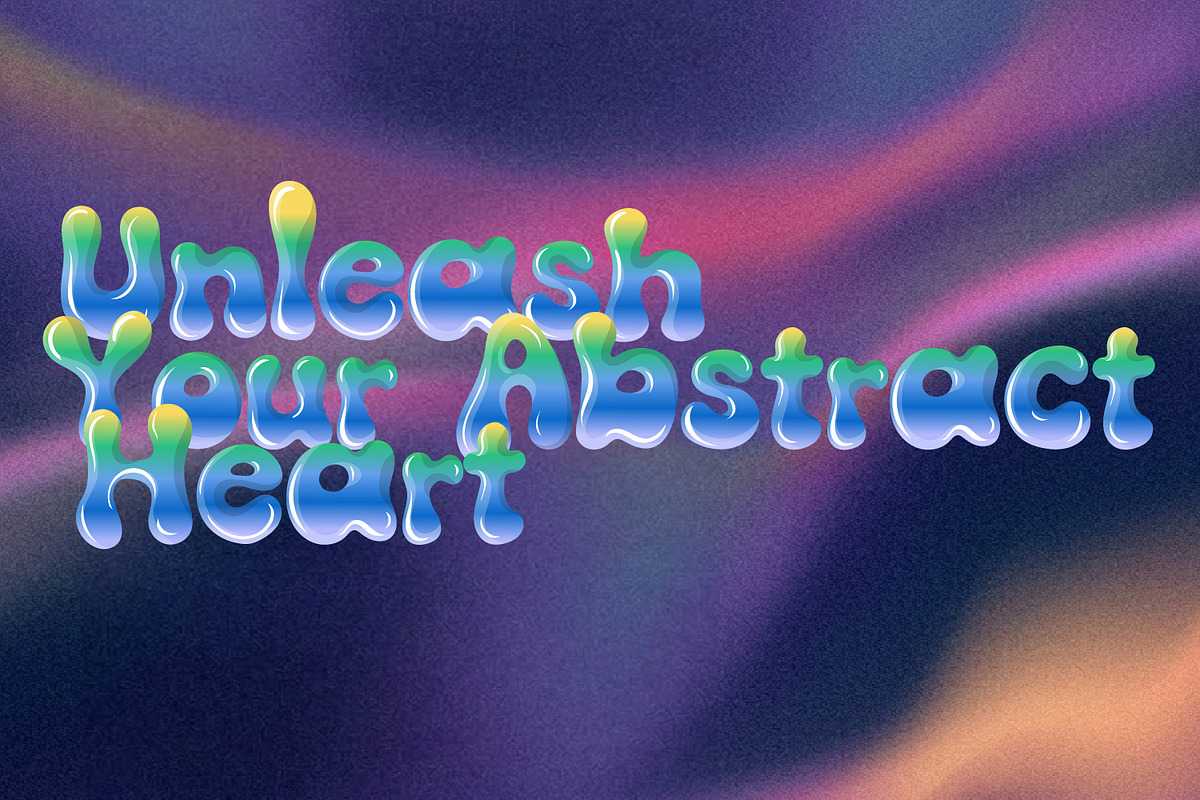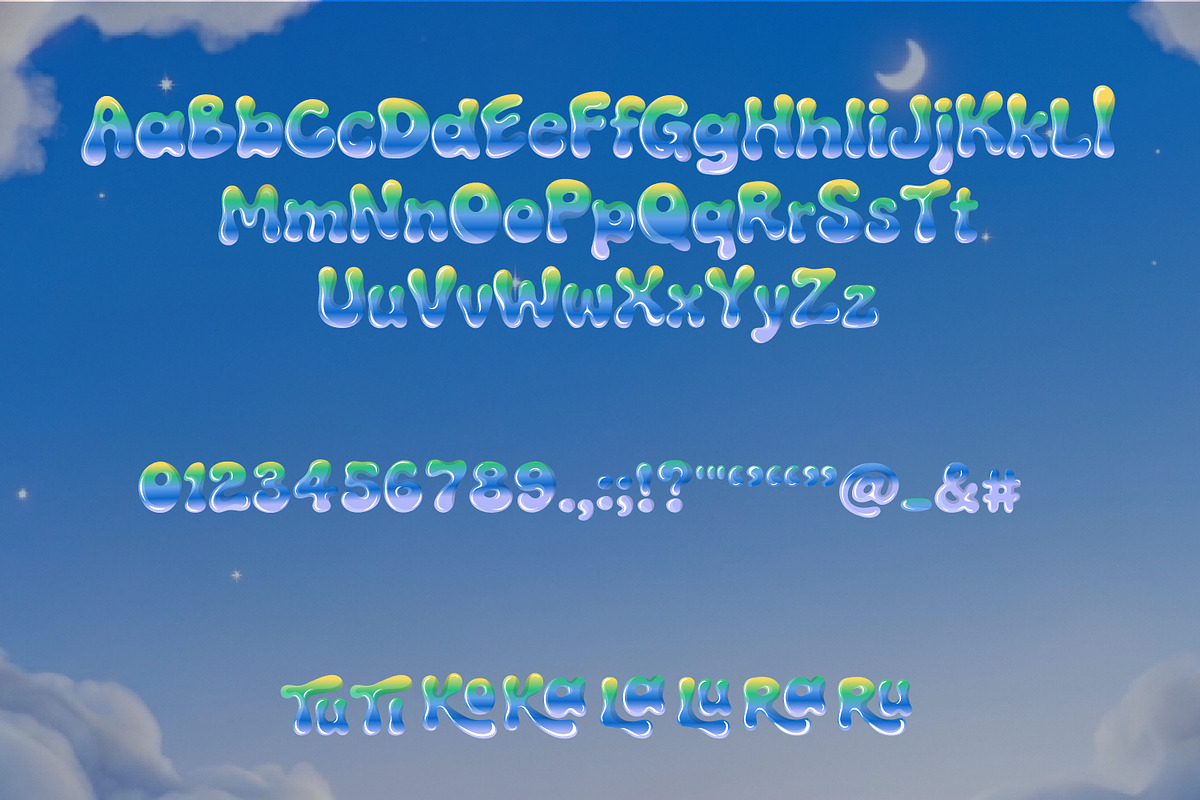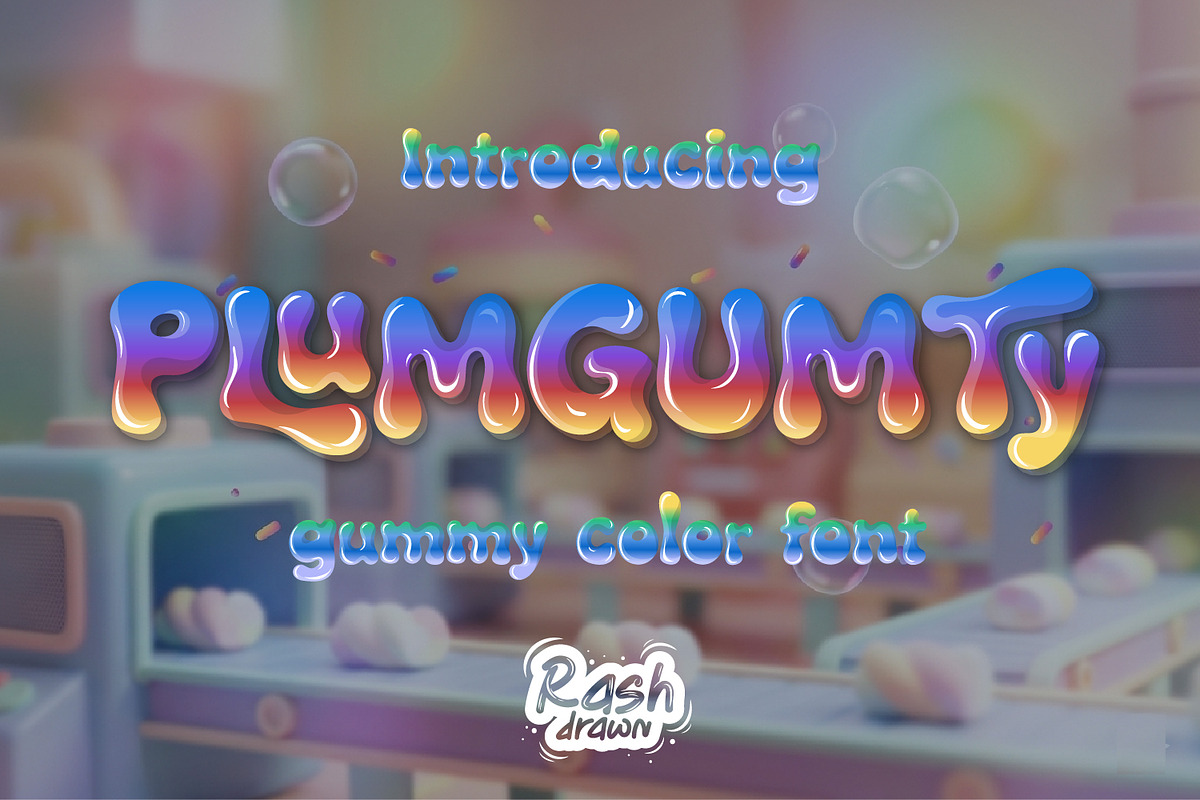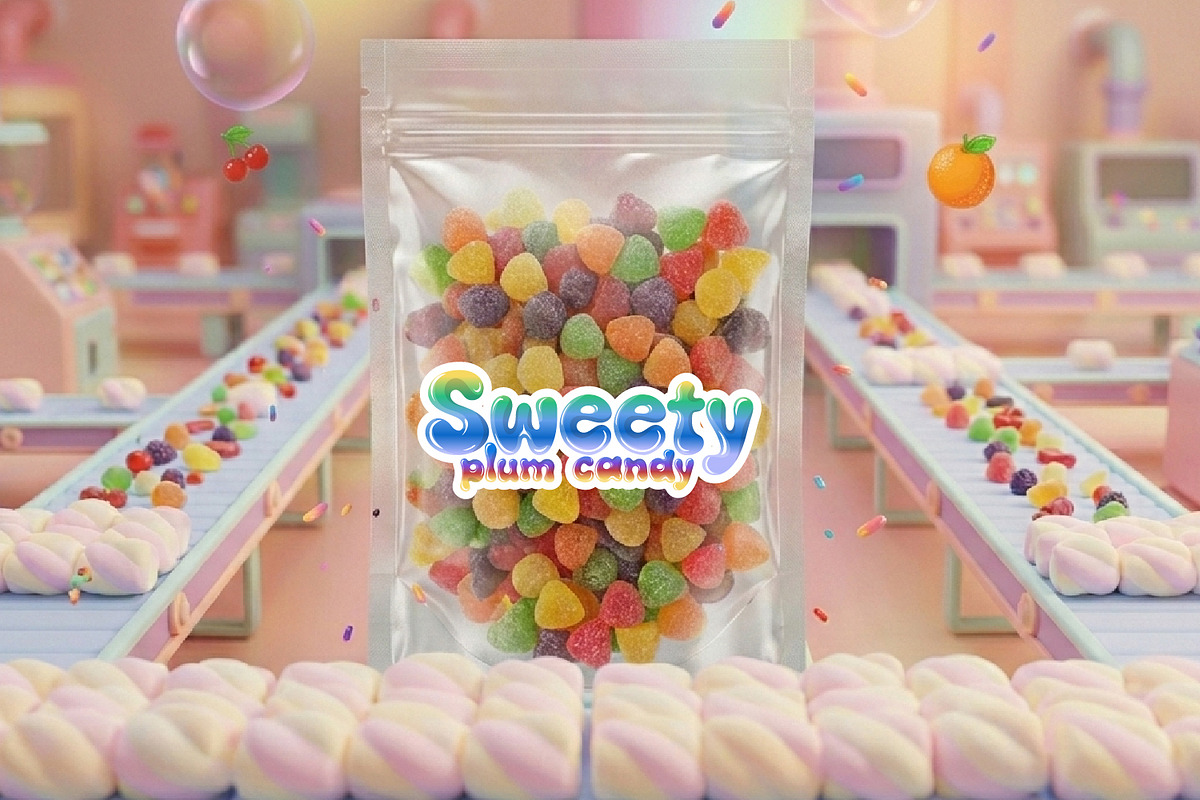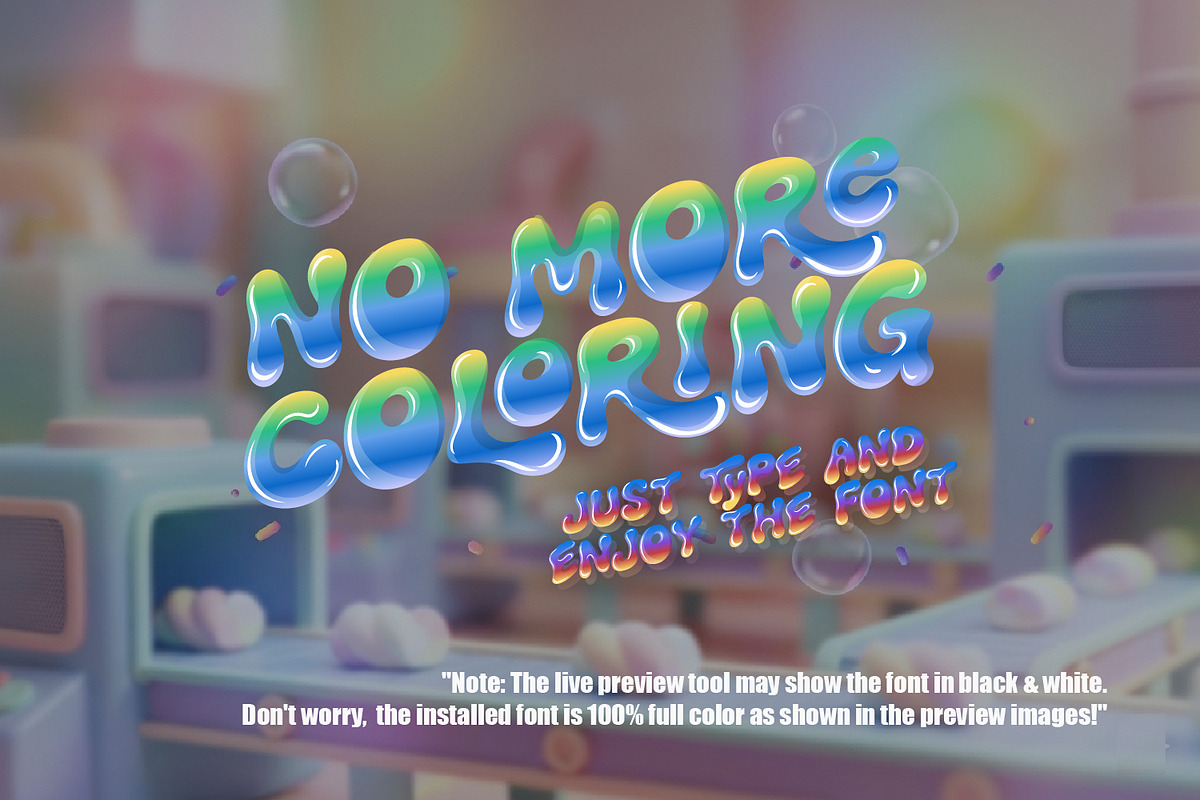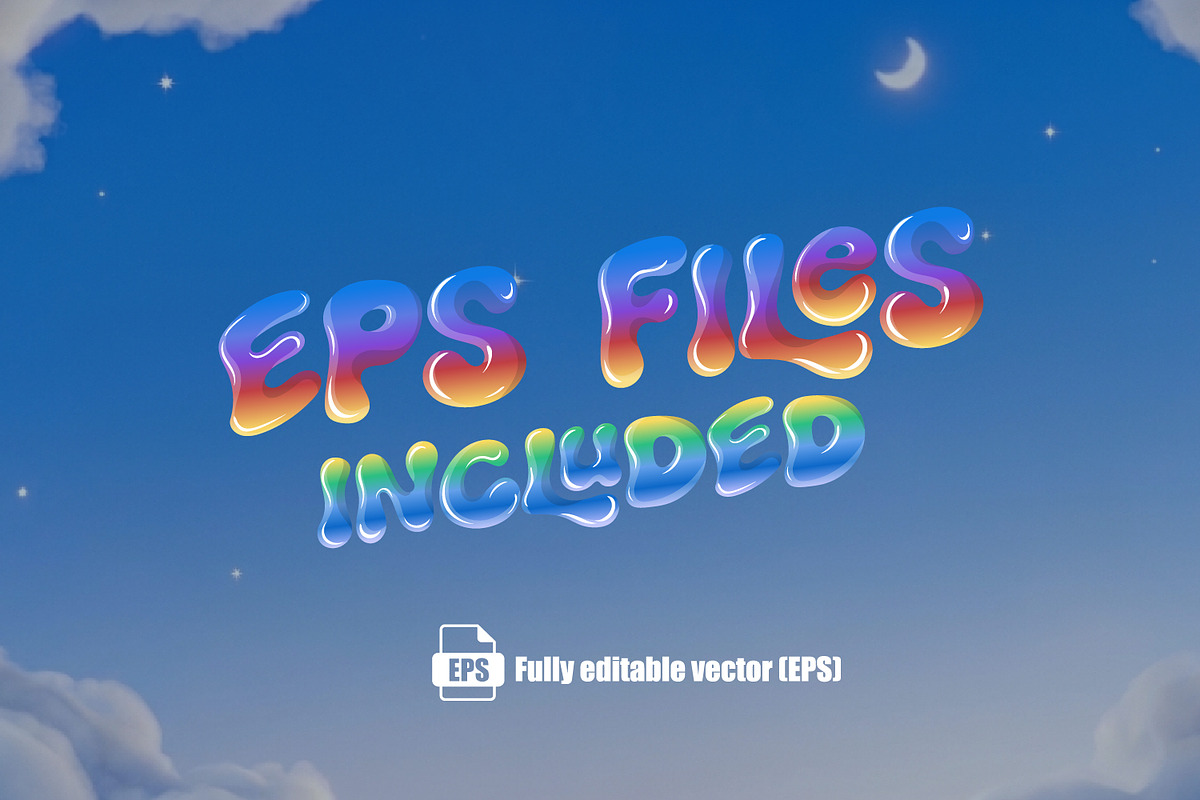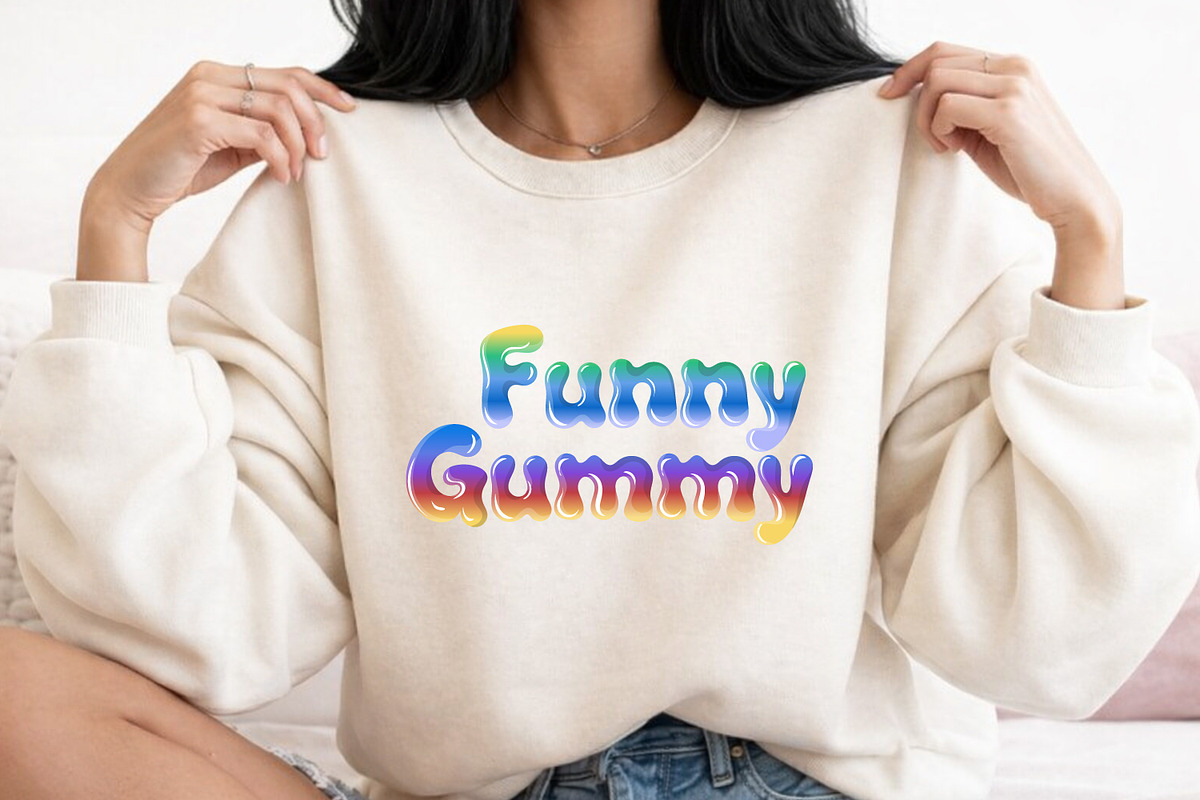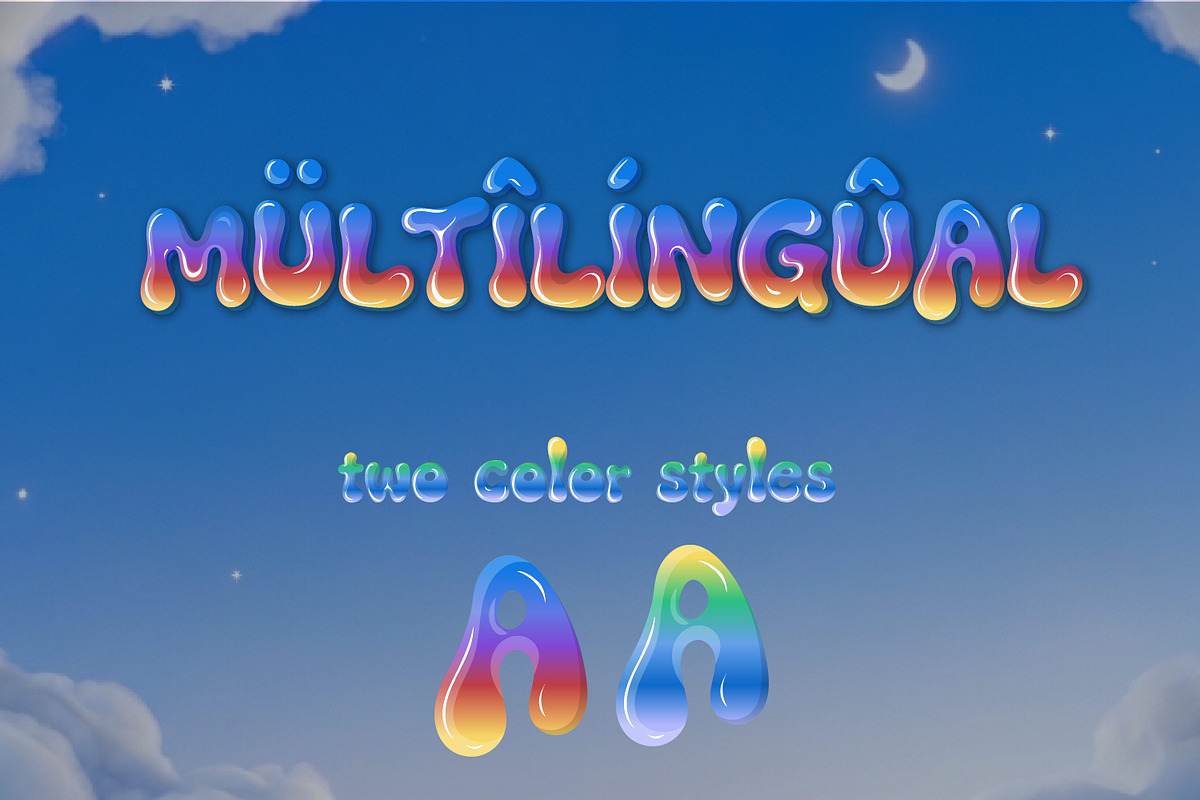
plumgumty
PLUMGUMTY – Glossy Gummy Color Font Bring a burst of sweetness and vibrant energy to your designs with PLUMGUMTY! This high-quality color font features a delicious, candy-inspired aesthetic with realistic glossy textures, bubbly liquid effects, and dynamic gradients.
Whether you're designing for kids' products, social media thumbnails, or modern Y2K-inspired branding, PLUMGUMTY is crafted to be an instant eye-catcher. No more manual coloring—just type and enjoy the full-color gummy goodness!
Multilingual Support: Includes accented characters for a wide range of languages.
Two Color Styles: Choose between a warm vibrant mix and a cool, refreshing gradient style.
Perfect For: 🍬 Packaging Design: Candy, snacks, toys, and kids' cosmetics.
🎬 Digital Content: Eye-catching YouTube thumbnails, TikTok covers, and Reels titles.
👕 Apparel: Fun t-shirt designs, hoodies, and streetwear.
🎨 Creative Projects: Posters, birthday invitations, stickers, and brand identities.
Features: High Resolution: Crisp, glossy details that look amazing even on large displays.
Unleash your abstract heart and sweeten your creative workflow with PLUMGUMTY today!